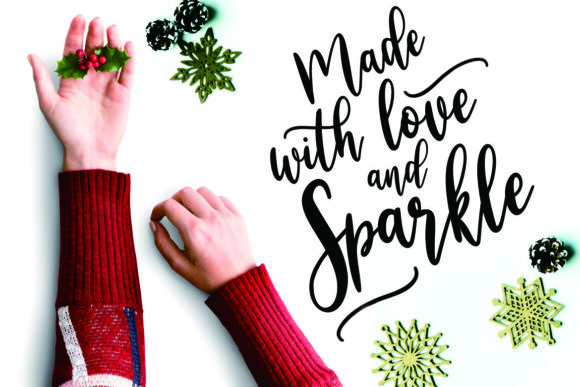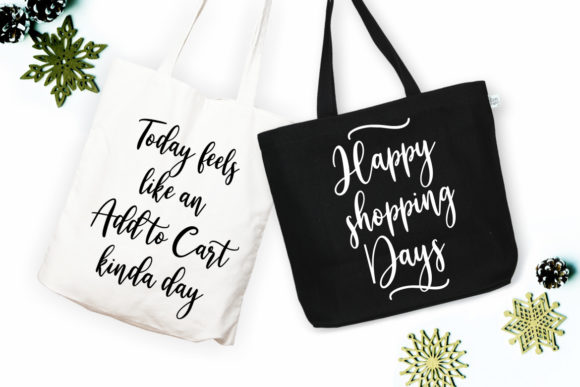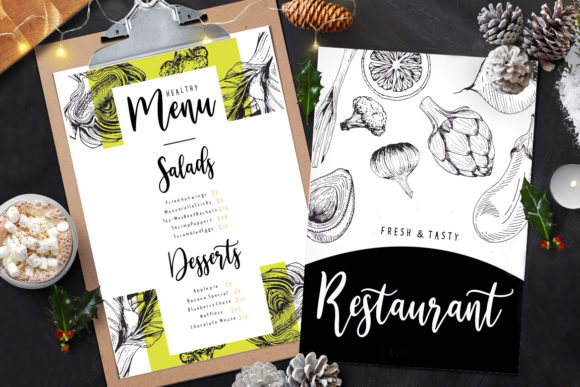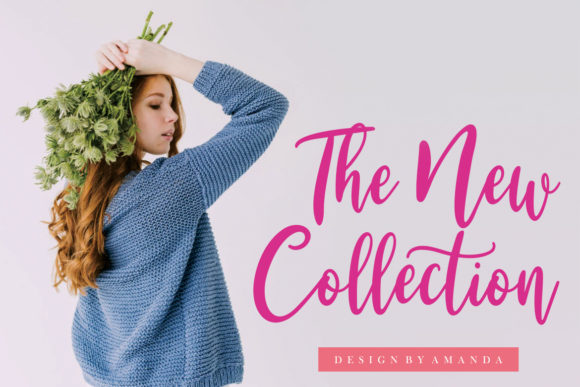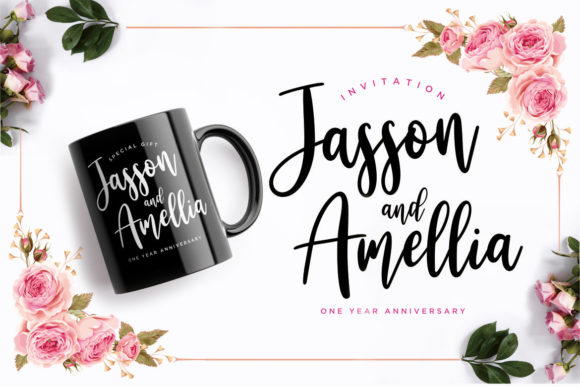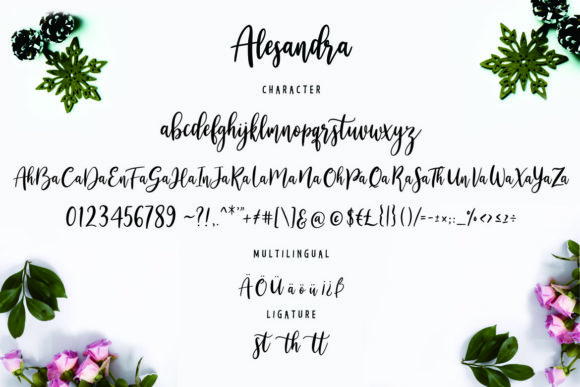
Alesandra Font: The Fresh, Friendly, and Fun Script to Elevate Your Designs
Are you tired of using the same old fonts in your designs? Look no further than Alesandra Font, a fresh, friendly, and fun script that can turn any design idea into a true piece of art. In this article, we’ll explore the features and benefits of Alesandra Font, and how it can help designers and crafters take their work to the next level.
What is Alesandra Font?
Alesandra Font is a unique and stylish script font that is perfect for a wide range of design projects. Its fresh and fun vibe makes it ideal for use in creative and playful designs, while its friendly and approachable feel ensures that it will resonate with audiences of all ages. Whether you’re working on a branding project, a marketing campaign, or a personal craft project, Alesandra Font is the perfect choice.
Key Features of Alesandra Font
• Fresh and Fun Design: Alesandra Font features a modern and playful design that is sure to grab attention. Its unique letterforms and flowing script make it perfect for use in creative and eye-catching designs.
• Friendly and Approachable Feel: Despite its playful vibe, Alesandra Font also has a friendly and approachable feel that makes it perfect for use in designs where you want to connect with your audience.
• Highly Versatile: Alesandra Font is incredibly versatile, making it suitable for use in a wide range of design projects, from branding and marketing to crafting and DIY projects.
• Easily Readable: Alesandra Font is designed to be easily readable, even at small sizes, making it perfect for use in designs where text needs to be clear and legible.
Benefits of Using Alesandra Font
So why choose Alesandra Font for your next design project? Here are just a few benefits of using this amazing script font:
• Adds a Personal Touch: Alesandra Font adds a personal touch to your designs, making them feel more approachable and relatable.
• Boosts Creativity: The fresh and fun design of Alesandra Font is sure to inspire creativity and help you come up with new and innovative design ideas.
• Perfect for Branding and Marketing: Alesandra Font is perfect for use in branding and marketing projects, where you want to make a lasting impression on your audience.
• Great for Crafting and DIY Projects: Alesandra Font is also perfect for use in crafting and DIY projects, where you want to add a personal touch to your creations.
• Pair it with Other Fonts: Alesandra Font pairs perfectly with other fonts, so don’t be afraid to experiment with different combinations.
• Use it in Headings and Titles: Alesandra Font is perfect for use in headings and titles, where you want to make a bold statement.
Alesandra Font is a fresh, friendly, and fun script font that can turn any design idea into a true piece of art. With its unique and stylish design, highly versatile nature, and easily readable text, Alesandra Font is perfect for use in a wide range of design projects. Whether you’re a designer, crafter, or DIY enthusiast, Alesandra Font is sure to become a favorite in your design arsenal. So why wait? Download Alesandra Font today and start creating amazing designs that will leave a lasting impression on your audience.